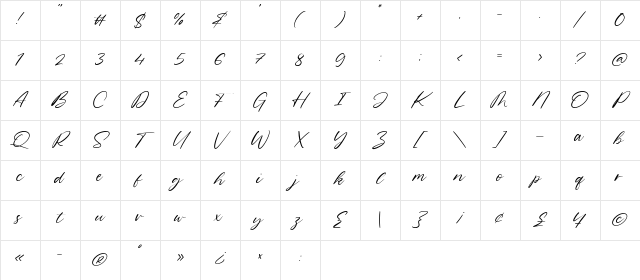
Geraldo Island Regular Free Font
Geraldo Island Regular
Design Context for Geraldo Island
Geraldo Island is a composed and adaptable typeface that performs quietly and consistently across a wide range of design contexts.